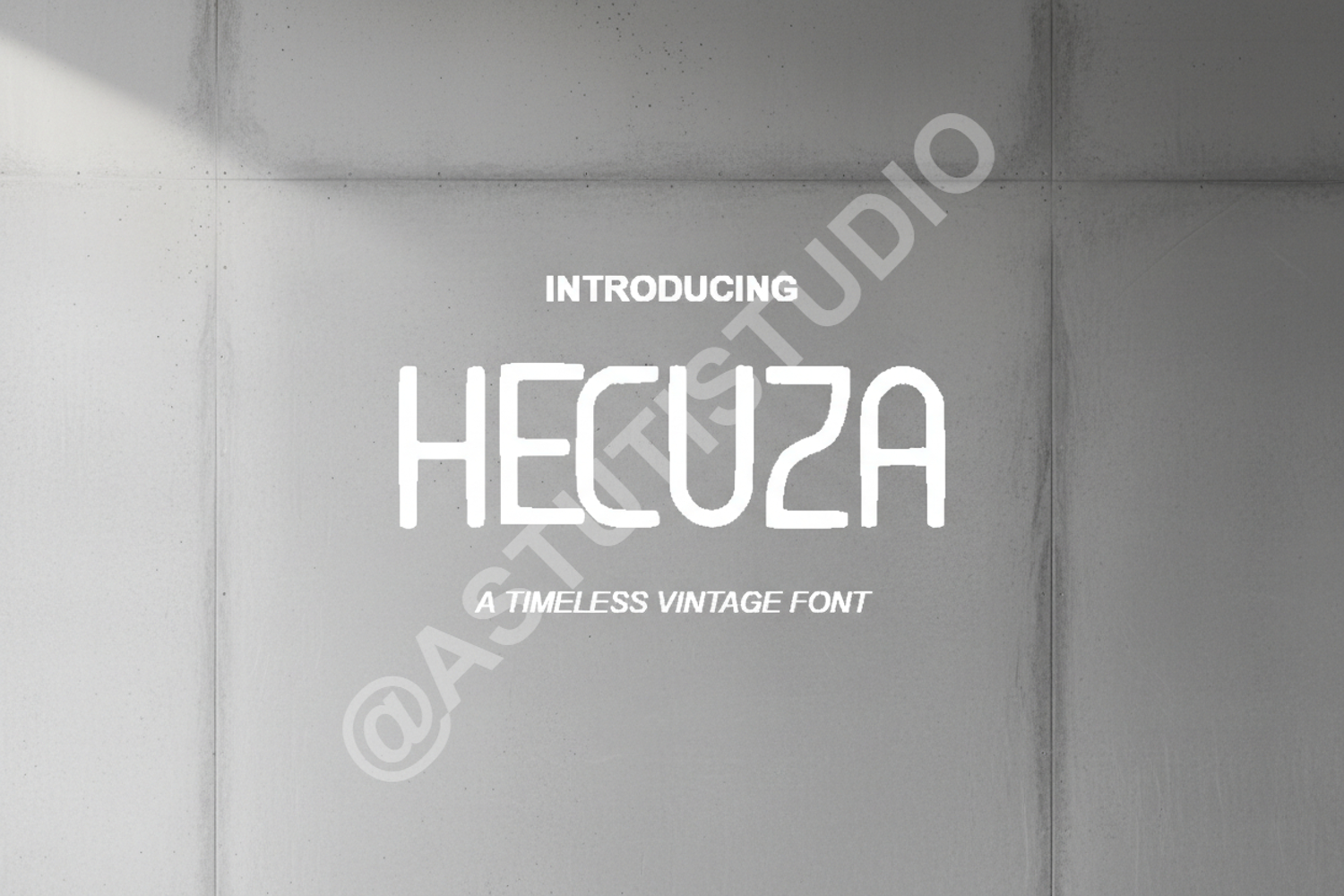
Hecuza - Elegant Luxury Serif Font
Hecuza
Elevate your creative projects with Hecuza, a premium serif typeface that exudes sophistication and timeless elegance. Meticulously crafted with high-contrast strokes and refined curves, Hecuza is designed to bring a touch of luxury to any design layout. Its versatile nature allows it to transition seamlessly between classic aesthetics and contemporary minimalist styles, making it a must-have for discerning designers.
- Unique ligatures and stylistic alternates for custom flourishes